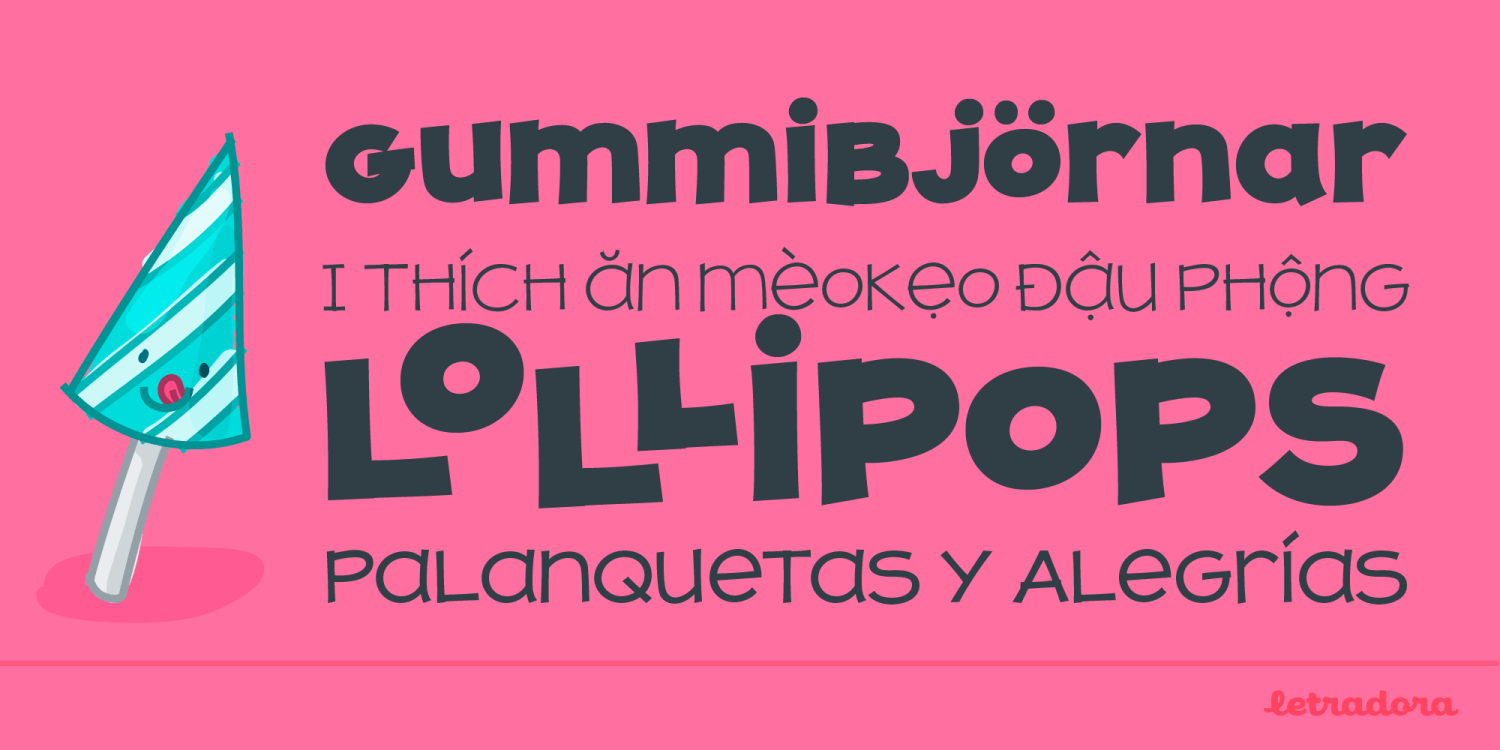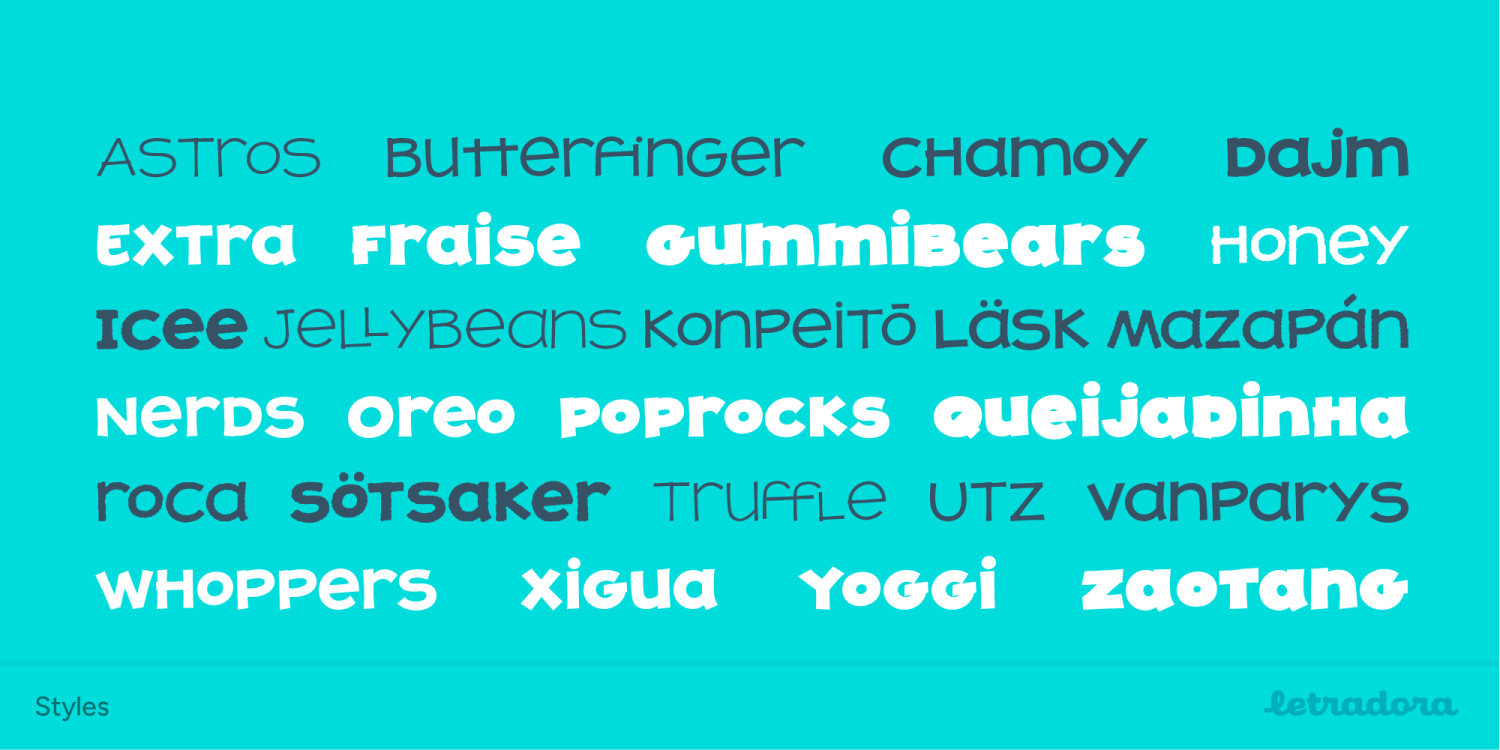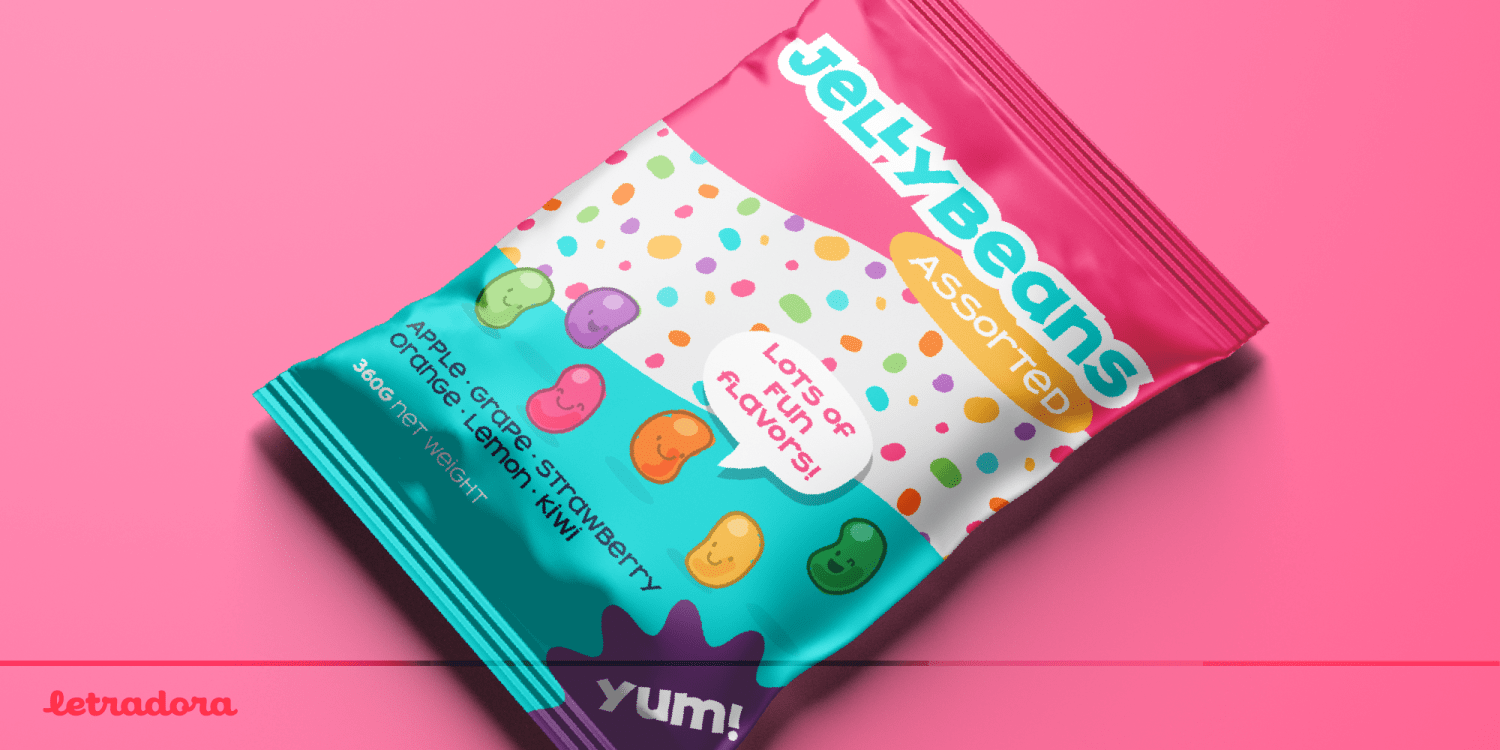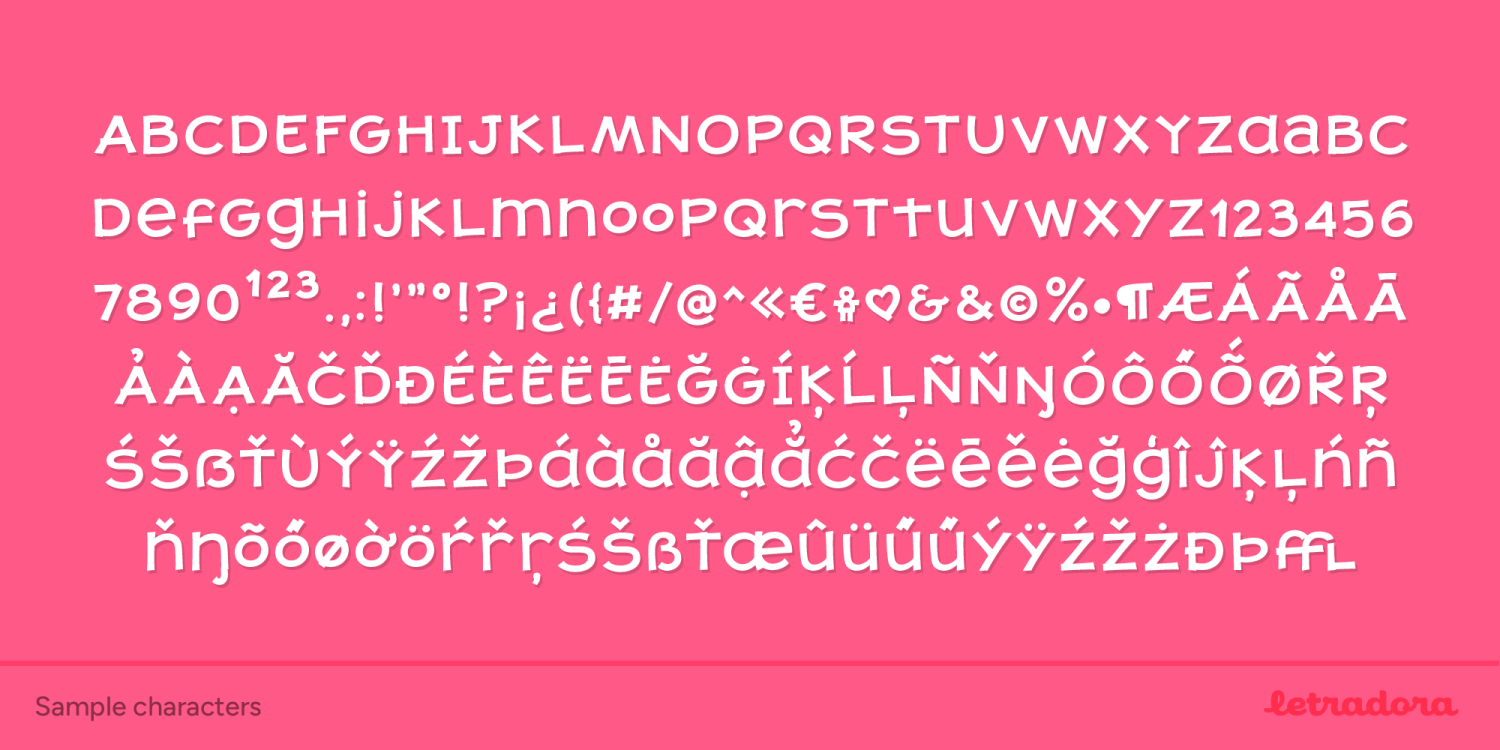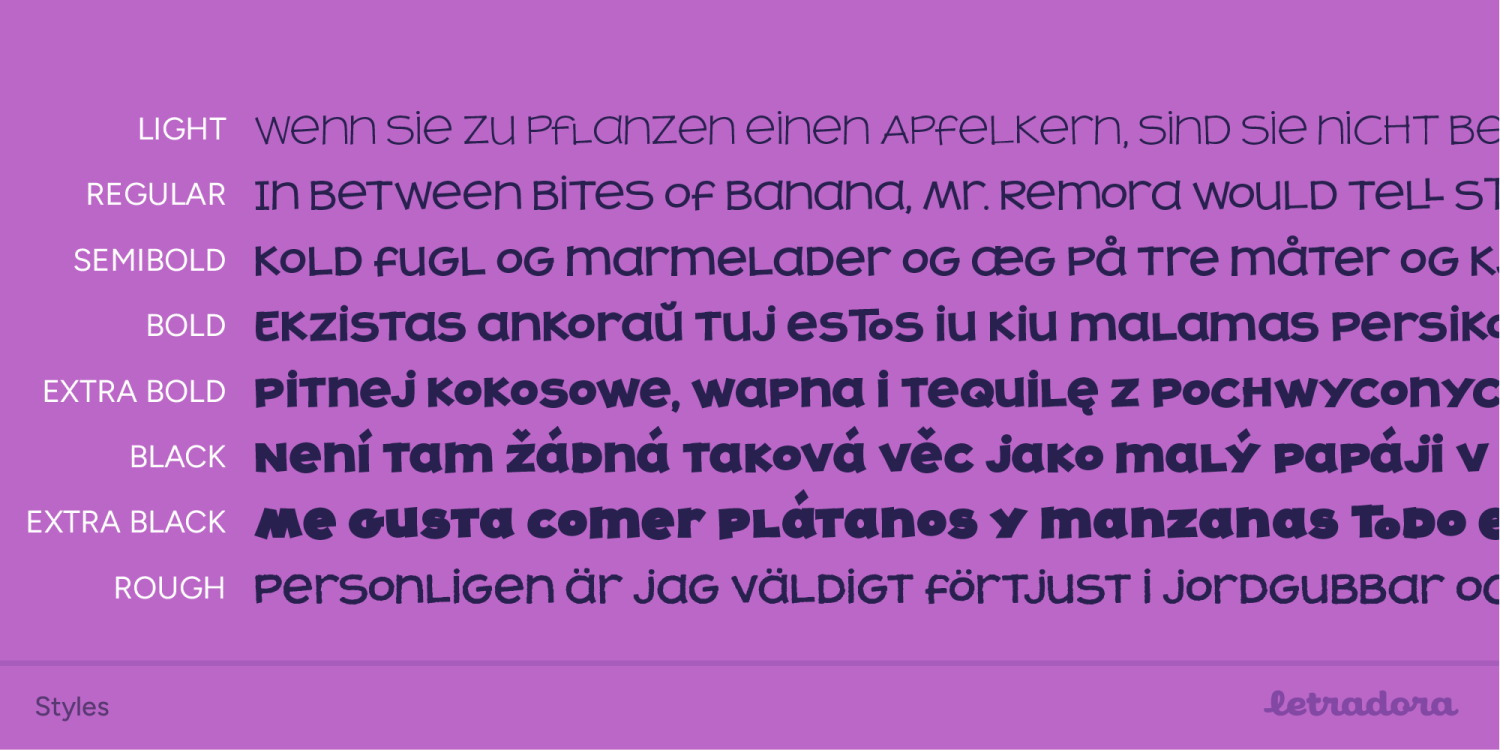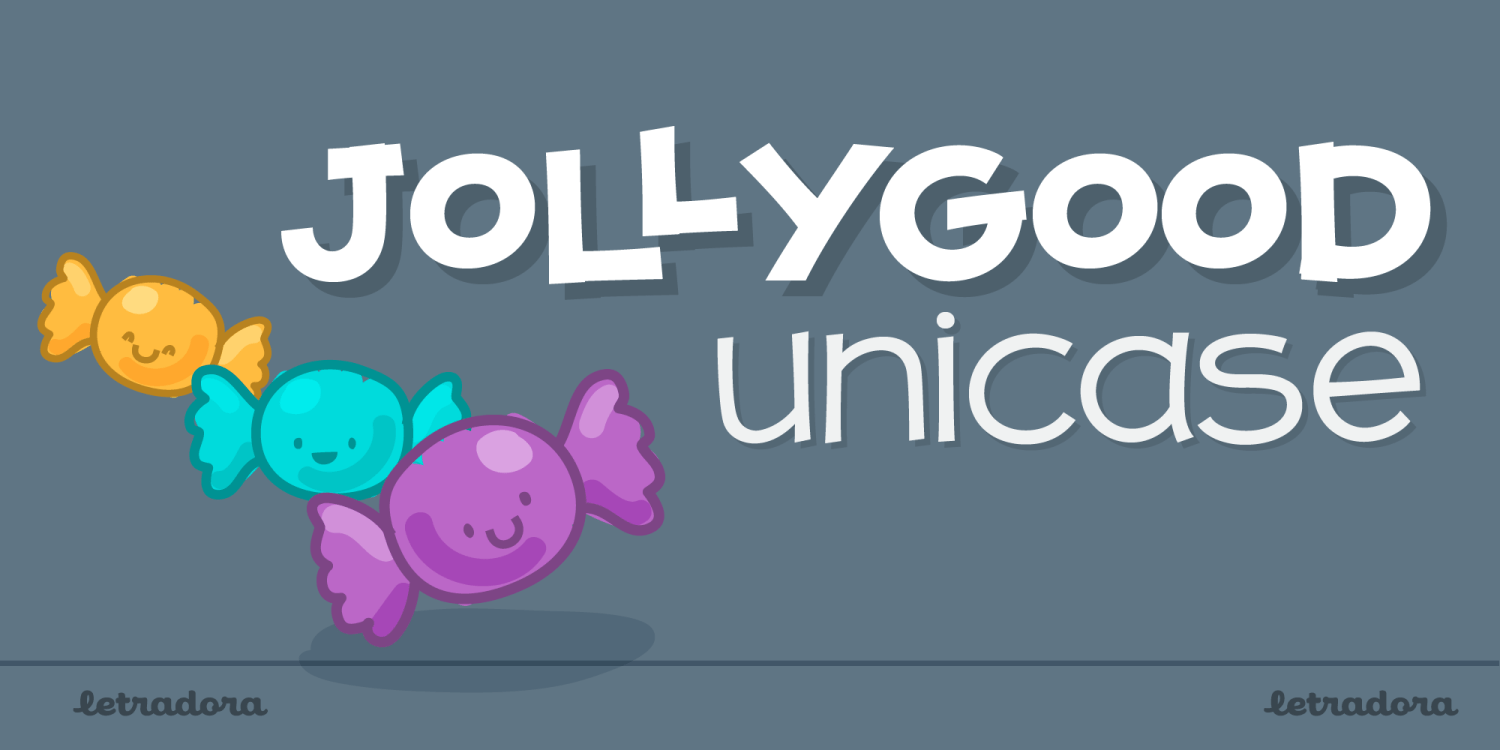
Jolly Good Proper Unicase
About Jolly Good Proper Unicase
Another member of the JollyGood family, this unicase version is a great way to add some fun to your headlines. It has a very complete character set, with support for western and central european languages. I've also included ligatures, alternate…